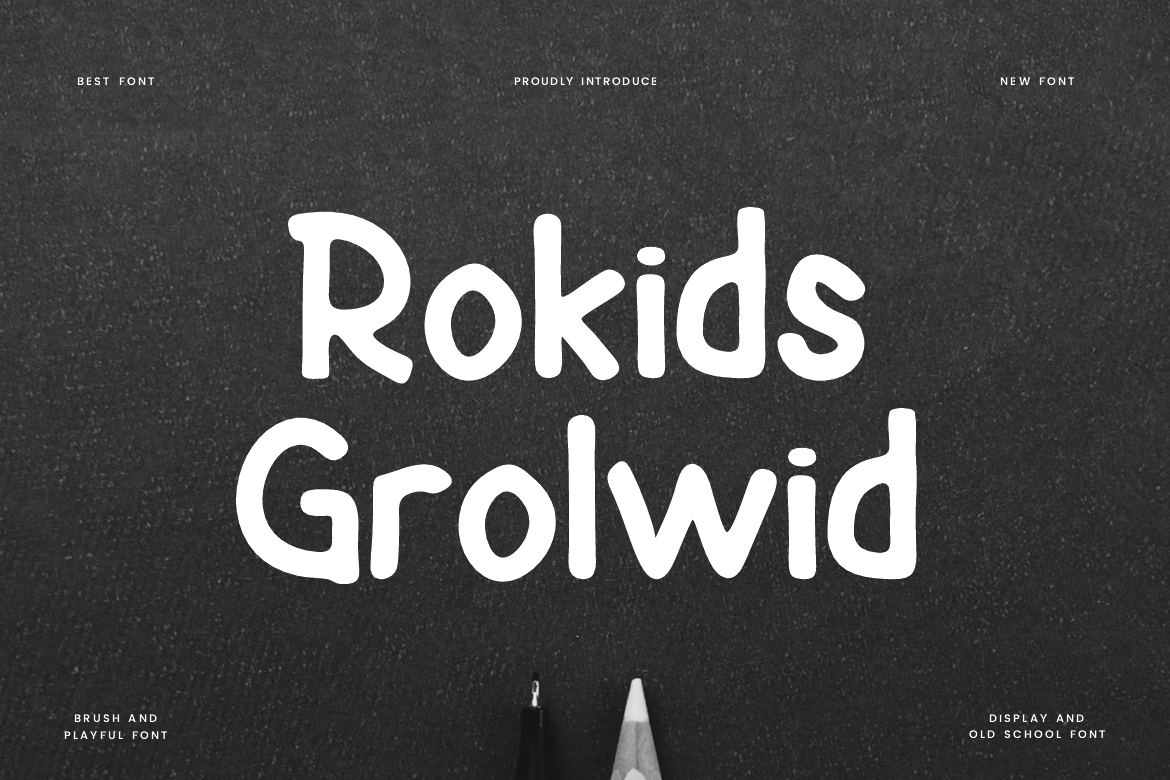
Rokids Grolwid - Paint & Chalk Font
Rokids Grolwid Font is a hand drawn and authentic display font. The font is suitable for any branding project like poster, logo, kids, and many more. Outstanding in a wide range of contexts.